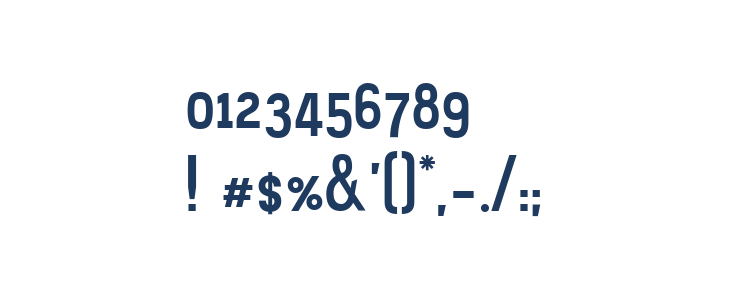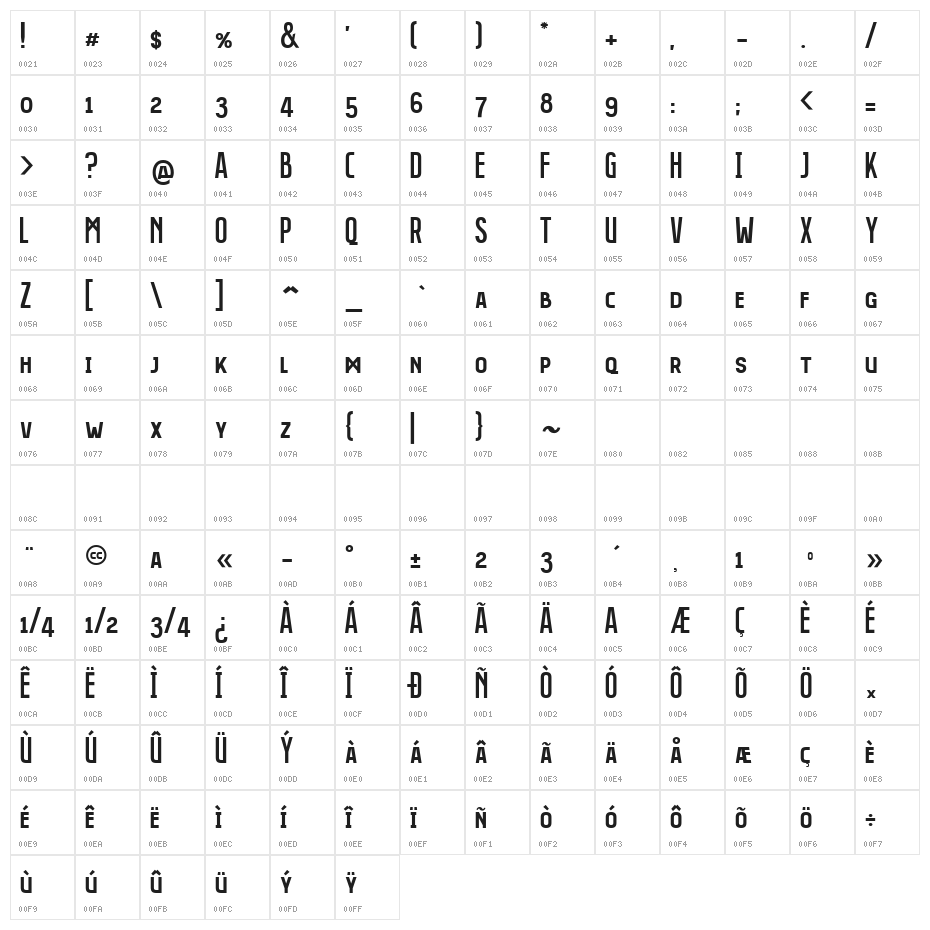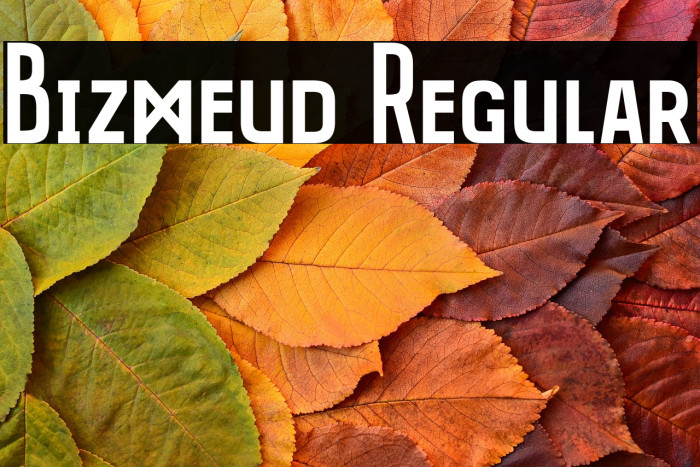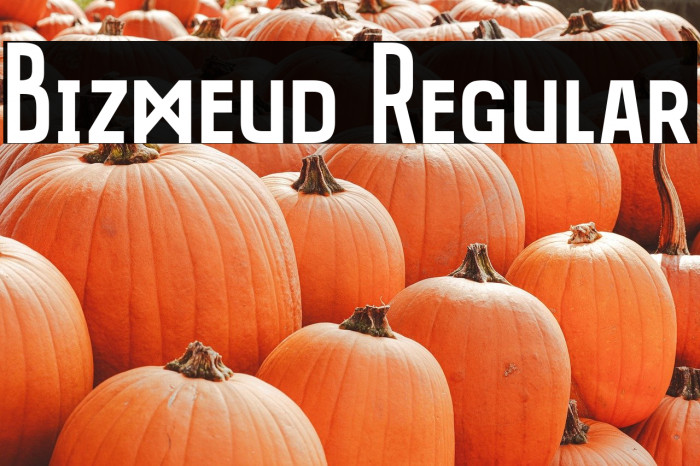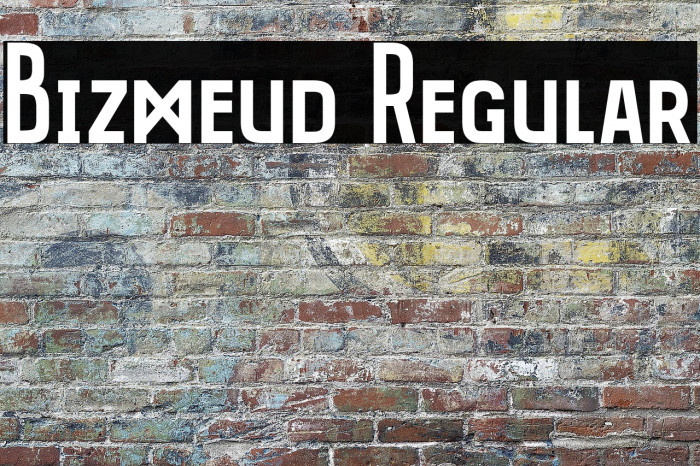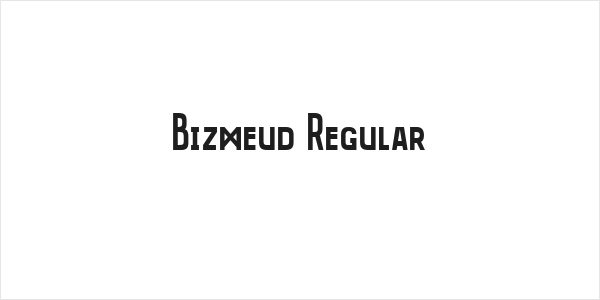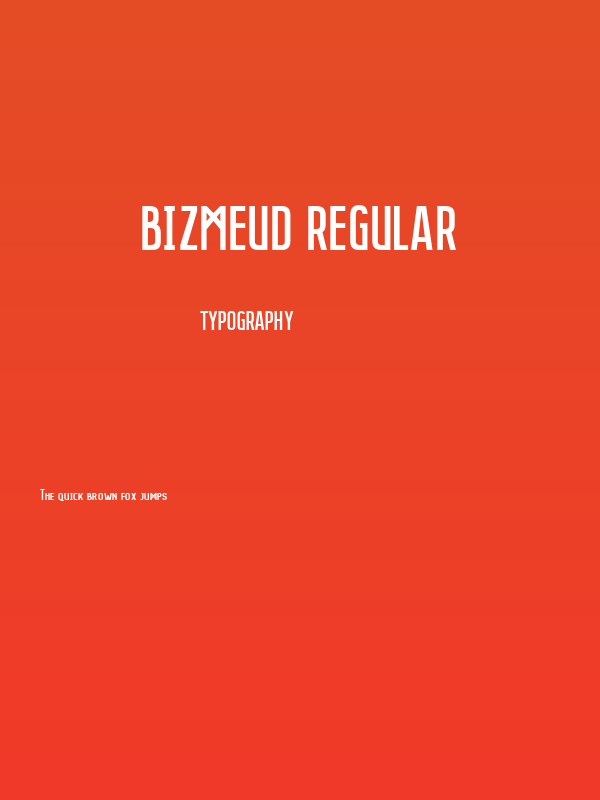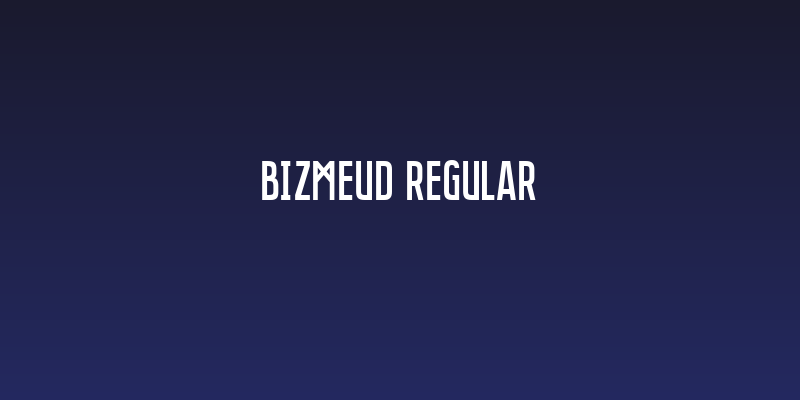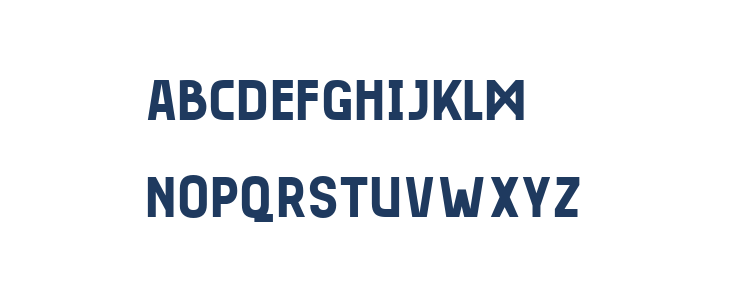
Bizmeud Regular Font
Bizmeud Regular Description
This font features a bold and modern design with clean, straight lines and a geometric structure. The uppercase letters are tall and narrow, giving a condensed appearance, while the lowercase letters maintain a consistent height, providing a uniform look. The numerals are clear and legible, matching the overall style of the alphabet. Special characters are included, offering versatility for various applications. The font's strong presence makes it suitable for impactful designs.
| Proposed Projects | Ideal for branding, headlines, posters, and digital media where a strong, modern aesthetic is desired. |